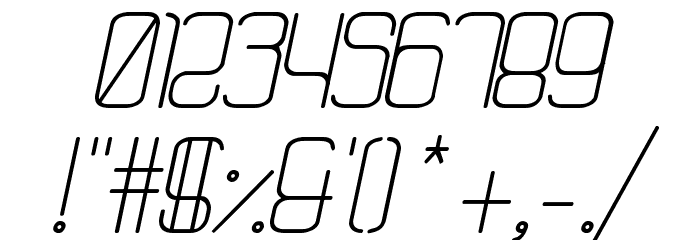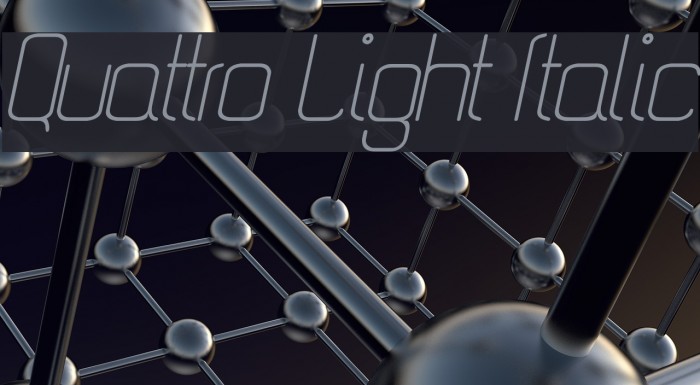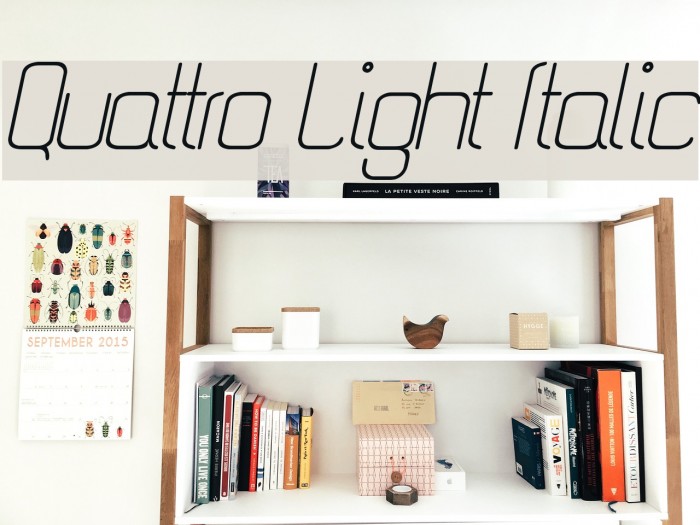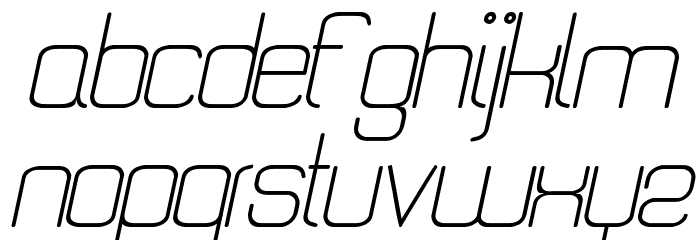
Quattro Light Italic Font
This font exhibits a sleek and modern design with a distinctive italic slant, characterized by its thin, elongated letterforms. The characters are constructed with a consistent stroke width, giving it a uniform appearance. The font's geometric nature is evident in its rounded edges and smooth curves, creating a sense of fluidity and motion. The uppercase and lowercase letters maintain a cohesive style, while the numerals and special characters complement the overall aesthetic. Its minimalistic and futuristic vibe makes it suitable for contemporary design projects.
A sleek, modern italic font with thin, elongated letterforms and a geometric style.
• Proposed Projects: Ideal for modern branding, tech-related designs, futuristic posters, and sleek editorial layouts.